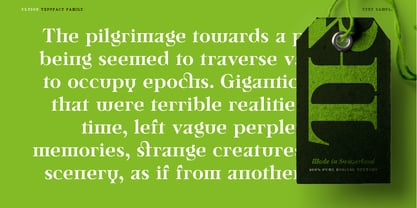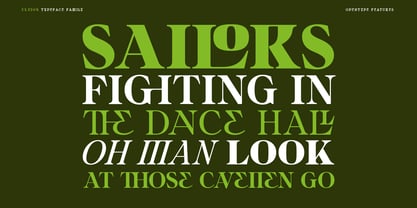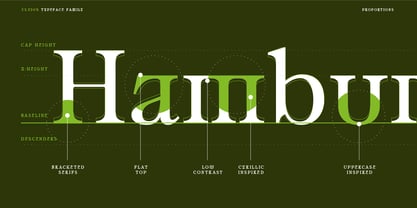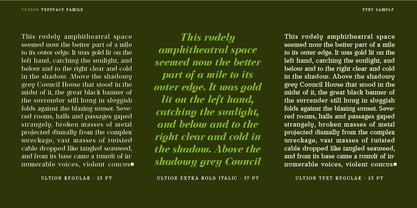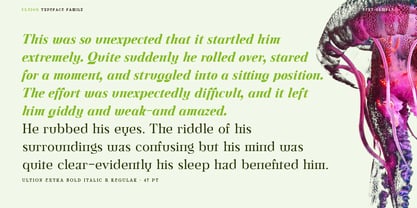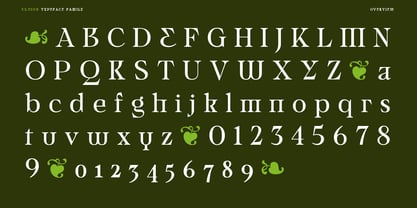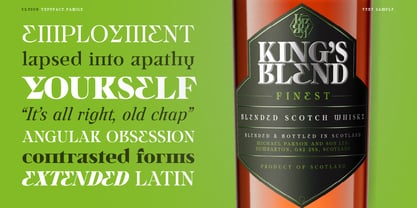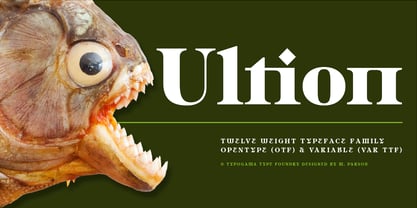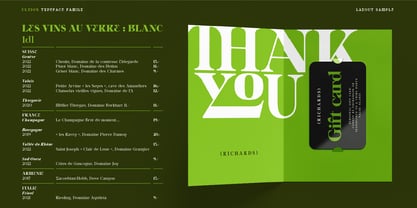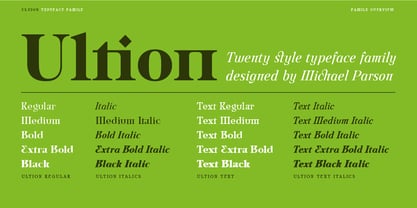
Ultion
by Typogama
The Ultion Font Family was designed by Michael Parson and published by Typogama. Ultion contains 22 styles and family package options. More about this family
Ultion was conceived as a new approach to the traditional serif typefaces. Based on the transitional styles developed in the 17th century, this typeface introduces new forms inspired by the Cyrillic alphabet to reinforce the horizontal tension in the design and offer a unique and distinctive voice to any content. Whether used in headlines that highlight the finer details or in longer passages of text, it remains a strong, legible, and functional design while offering a particular style. With a range of weights and accompanying italics, it can adapt to a wide range of settings. Due to its high contrast that may affect legibility, a secondary set of weights labeled Text is equally included, which features a more balanced stroke and less pronounced contrast for a denser solution. Ultion features a range of Opentype features from ligatures, discretionary ligatures, and a series of numerals that will offer a wide set of solutions for any layout. With an extended Latin character set, it can cover over 250 different languages and dialects.
Designers: Michael Parson
Foundry: Typogama